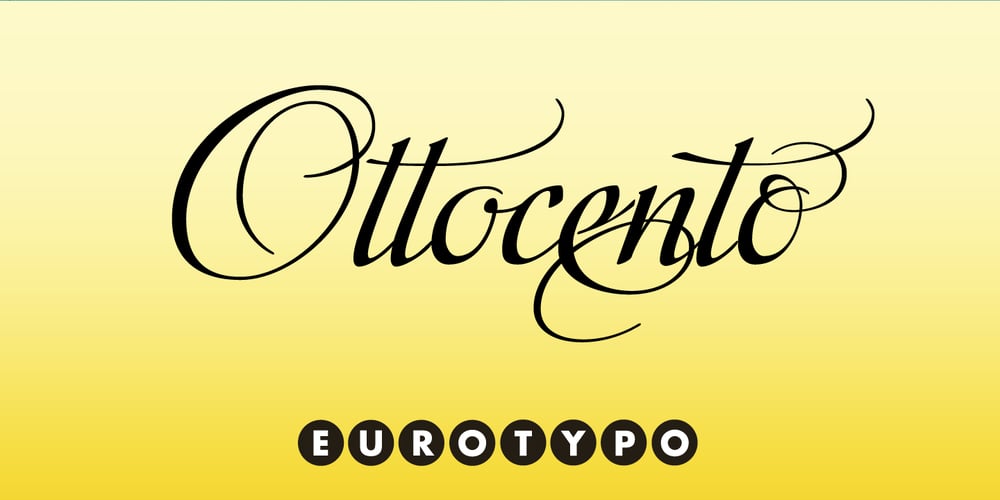
Ottocento
Ottocento font
Ottocento Font Family was designed by Alberto Pedro Di Santo and published by Eurotypo. Ottocento contains 1 styles and family package options. Ottocento is an elegant chancery cursive, derived from XIXth century Italian calligraphy. Slightly inclined and with a fast and marked ductus, this font is well balanced between thick and thin strokes and shows marked ascendings and descendings. Ottocento is rich in stylistic variations with its elaborated upper cases, and stylistically different in traits and different ligatures are considered to make the most of the many OpenType features.